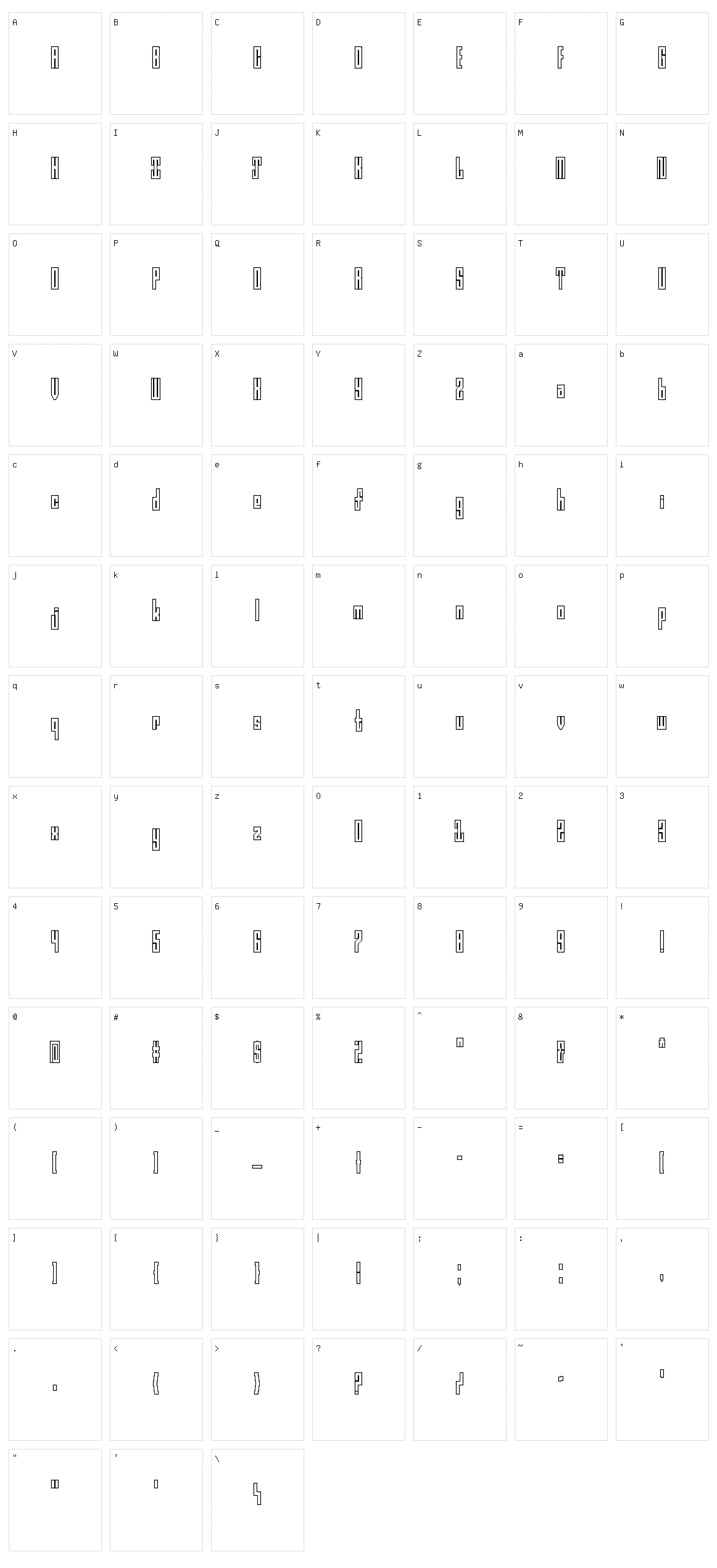
The free font En Tall is carefully designed by Naveen Chandru, showcasing a thoughtful balance of creativity and usability and falls under the Square font style. When you download the ZIP file, it contains only 5.03 KB of font files, making it lightweight and quick to download. Please review the license details below to understand permitted usage and distribution rights. If license information is not available, we recommend using this font for personal projects only or contacting the author directly for commercial usage permissions.